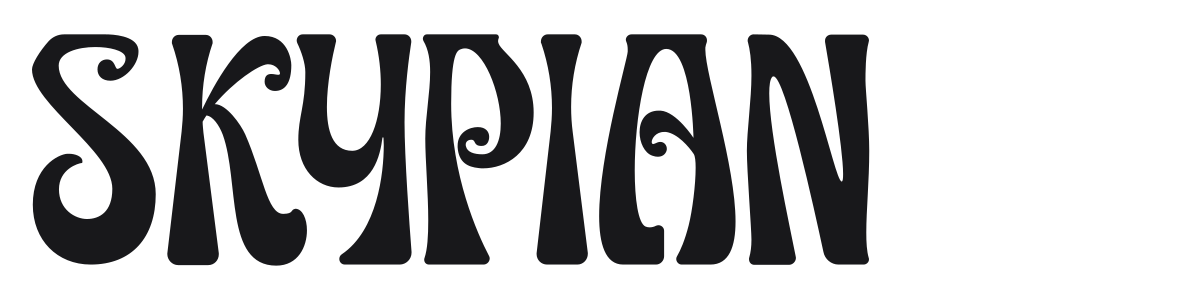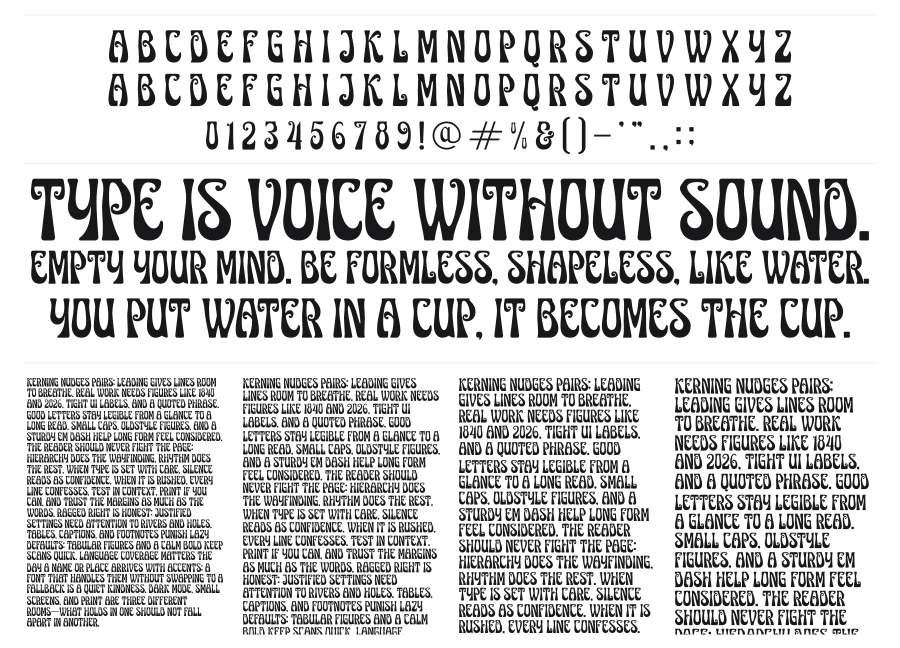
Skypian
Skypian is a bold groovy display face built on the swelling curves and spiraling terminals of 1960s psychedelic poster lettering. The high stroke contrast between thick stems and thin connectors gives it a dramatic, almost liquid quality. It carries strong retro energy suited to music, festival, and entertainment branding.